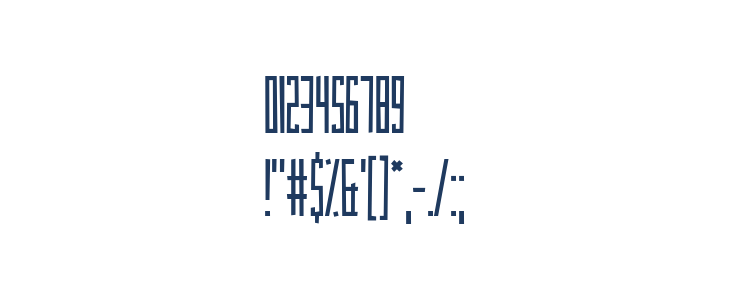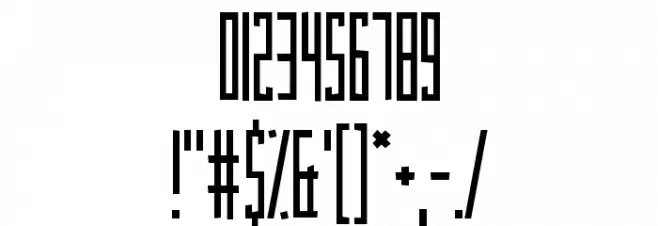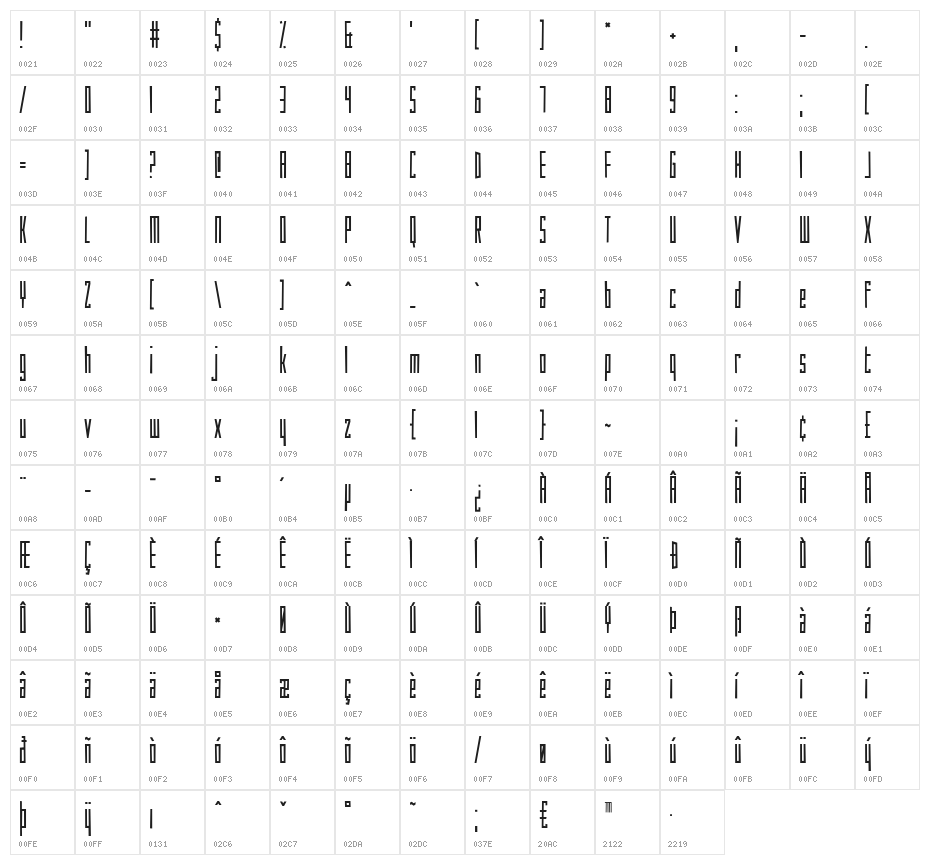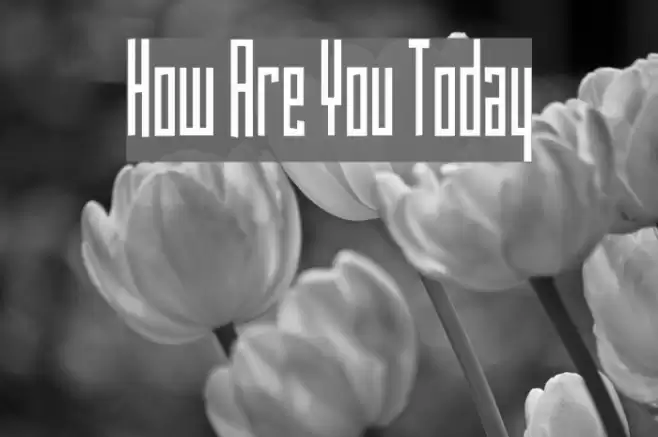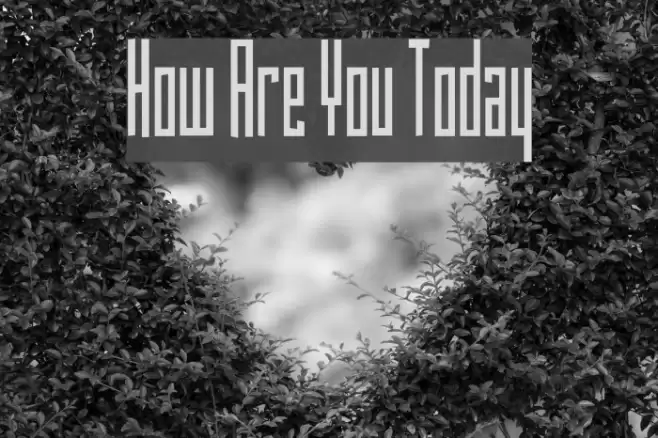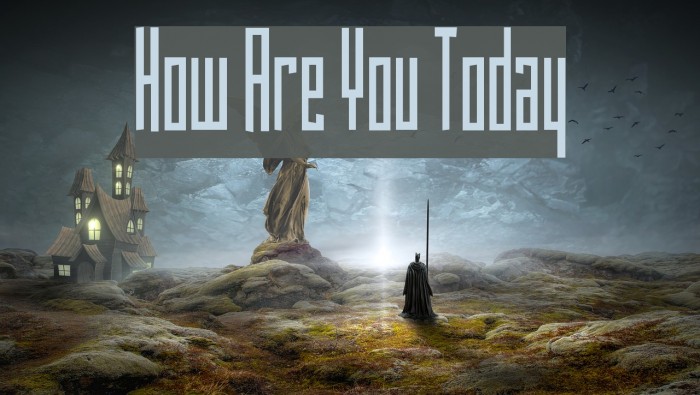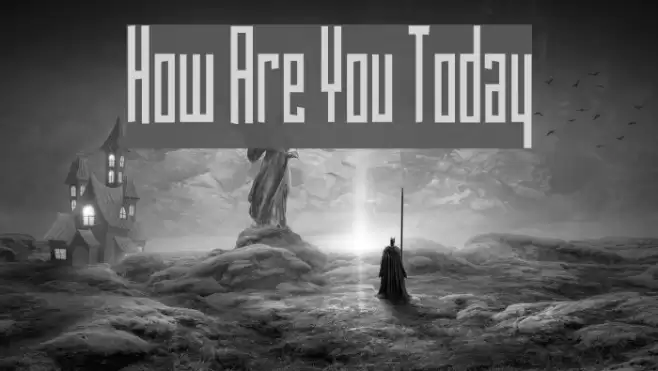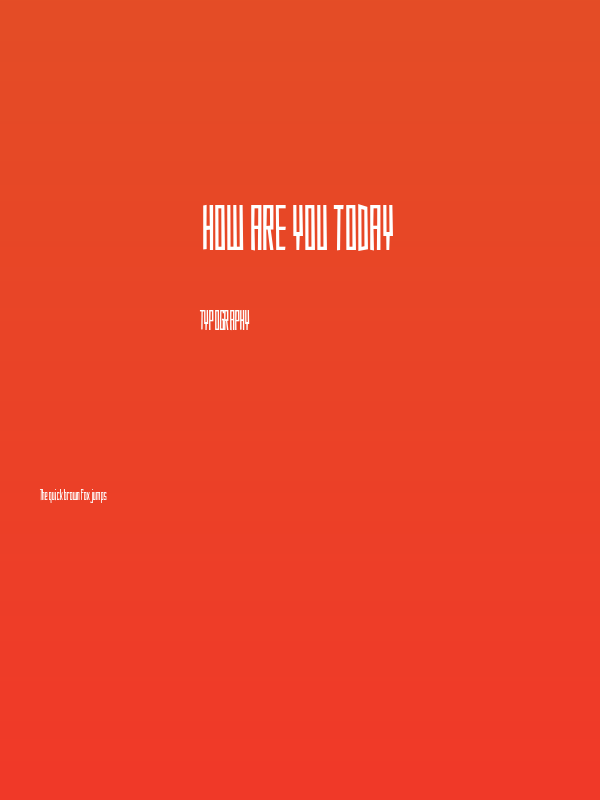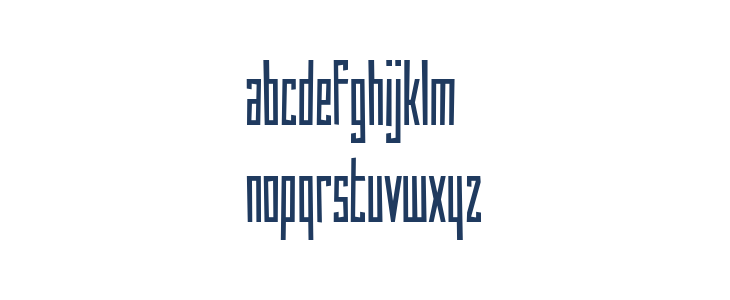
How Are You Today Font
How Are You Today Description
This font features a tall, narrow design with a distinctly modern and geometric aesthetic. The characters are uniformly structured with consistent vertical strokes and minimal curves, giving it a sleek and streamlined appearance. The uppercase letters are particularly elongated, while the lowercase letters maintain a similar height, creating a cohesive look across the alphabet. The numerals and special characters follow the same design principles, ensuring uniformity throughout. This font's clean lines and sharp angles make it suitable for contemporary and futuristic themes.